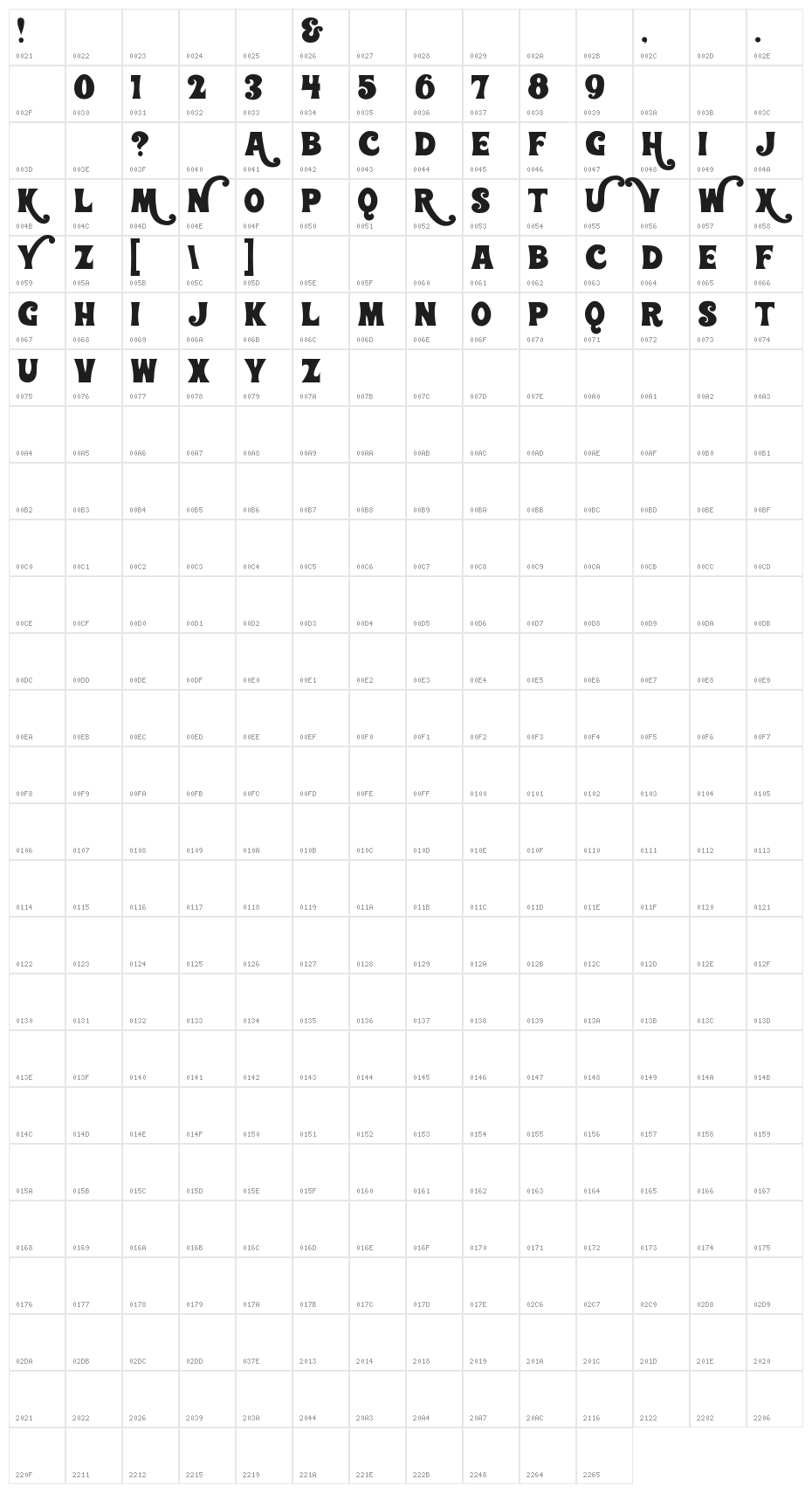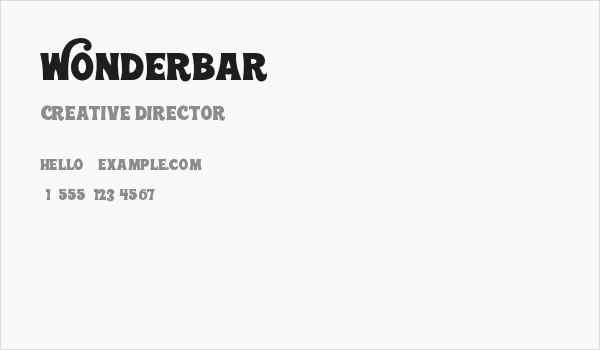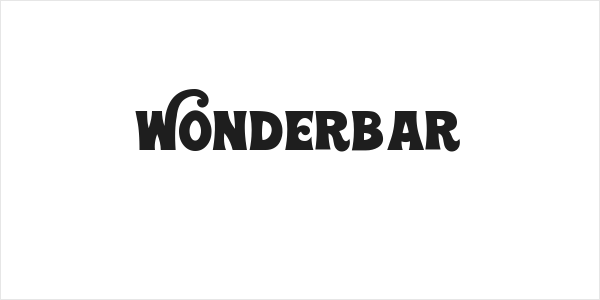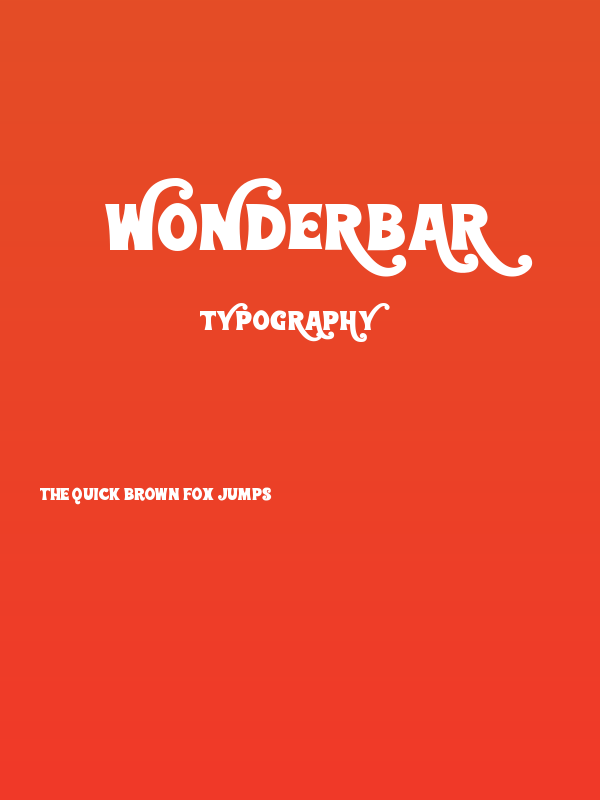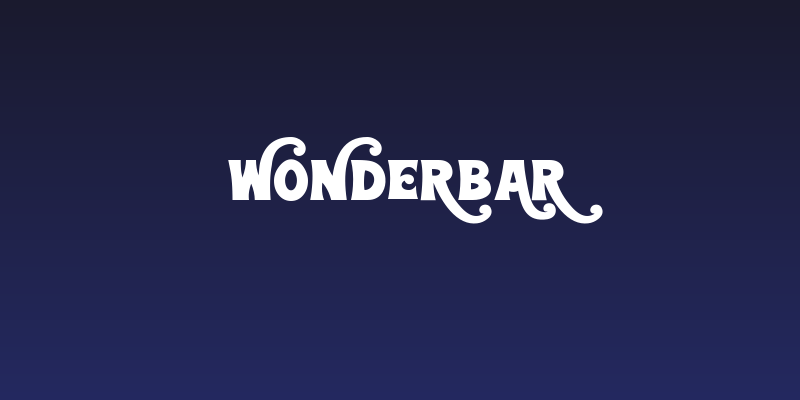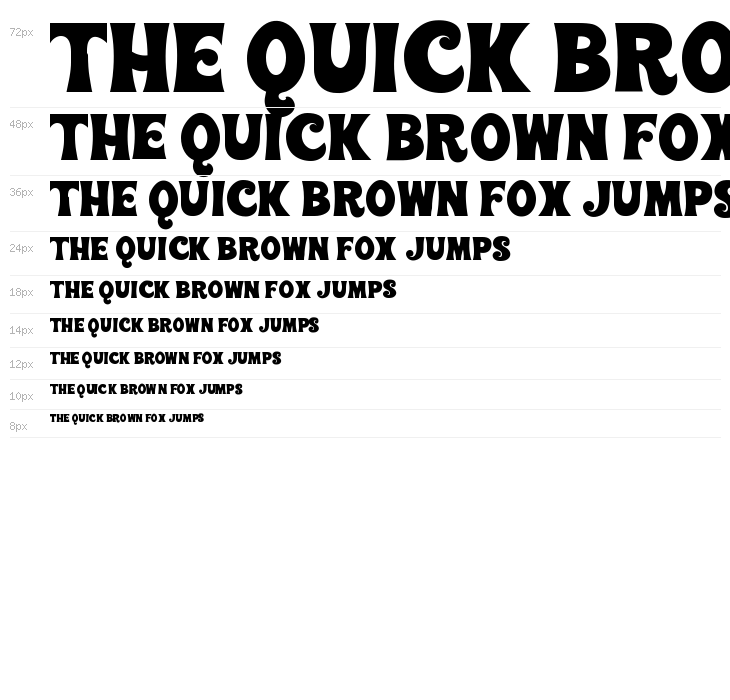
Wonderbar Font
Wonderbar Description
This font features a bold and playful design with a distinct decorative flair. The characters are characterized by thick strokes and whimsical curls, particularly noticeable in the uppercase letters. The overall appearance is dynamic and eye-catching, making it ideal for creative and expressive design projects. The numbers and special characters maintain the same bold and decorative style, ensuring consistency across all elements. The font's unique style is perfect for projects that require a touch of fun and creativity.
| Proposed Projects | Ideal for posters, logos, headlines, and any design needing a bold, playful touch. |